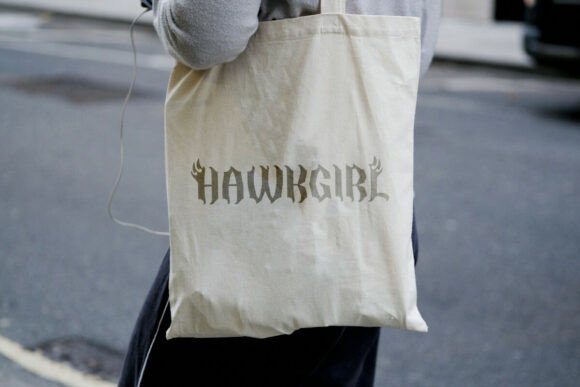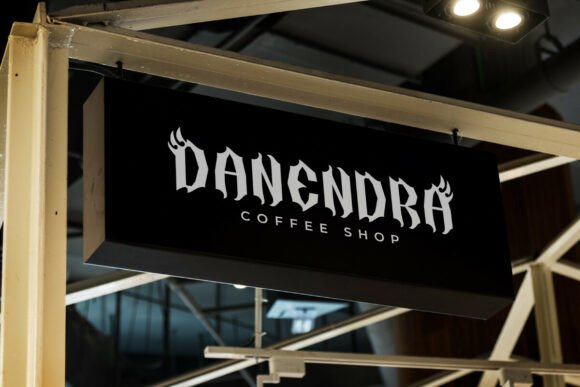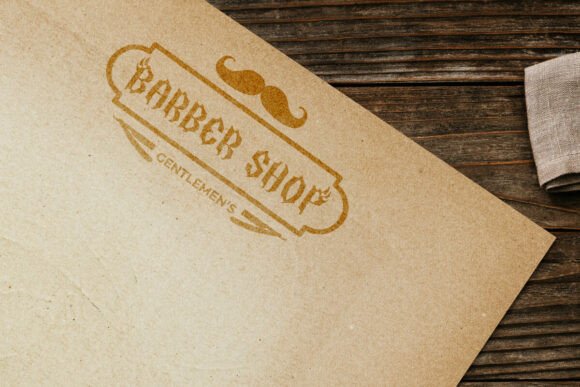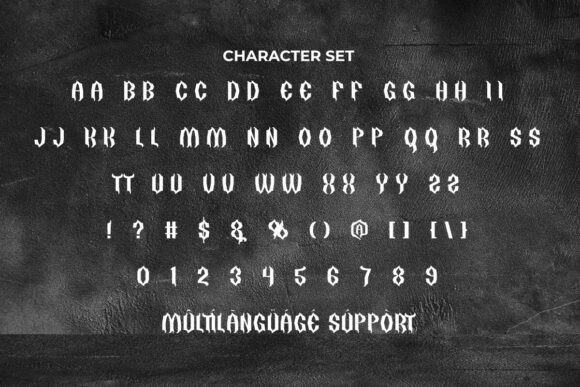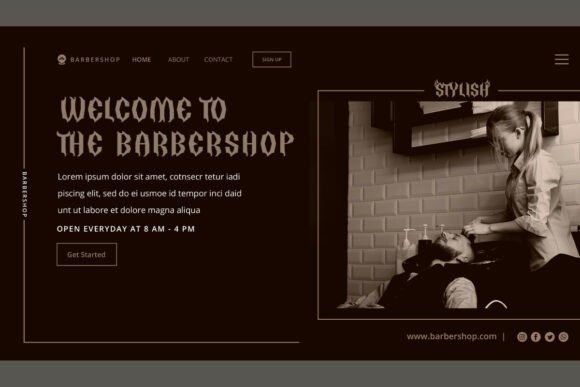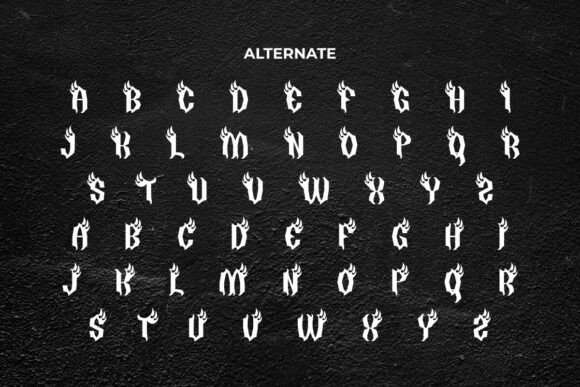
Hawkgirl Font: Unleash the Power of Bold Blackletter Typography
In the world of typography, fonts play a crucial role in conveying the tone and personality of a design. For designers and crafters looking to make a statement, Hawkgirl Font is an excellent choice. This bold blackletter display font is designed to evoke a sense of masculinity, horror, and fight, making it perfect for a wide range of applications.
The Characteristics of Hawkgirl Font
Hawkgirl Font boasts sharp angles that give it an intimidating and bold impression. The blackletter style, with its dramatic flourishes and sharp serifs, is reminiscent of traditional Gothic typography. However, Hawkgirl Font takes this classic style to the next level with its modern twist, making it perfect for designers looking to create a unique and eye-catching design.
What Makes Hawkgirl Font Stand Out
So, what sets Hawkgirl Font apart from other fonts? Here are a few key features that make it an excellent choice for designers and crafters:
- Bold and Intimidating: Hawkgirl Font is designed to make a statement. Its bold and sharp angles give it an intimidating presence that demands attention.
- Masculine and Edgy: The font’s blackletter style and sharp serifs give it a masculine and edgy feel, perfect for designs that require a strong and powerful look.
- Versatile: Hawkgirl Font is incredibly versatile and can be used for a wide range of applications, from branding and marketing materials to invitations and packaging.
Hawkgirl Font is perfect for any design project that requires a bold and eye-catching font. Here are some examples of how you can use Hawkgirl Font:
- Brand Image: Create a strong and memorable brand image with Hawkgirl Font. Its bold and intimidating presence makes it perfect for logos, business cards, and other marketing materials.
- Custom Design: Add a personal touch to your designs with Hawkgirl Font. Its unique and edgy style makes it perfect for custom designs, such as posters, flyers, and brochures.
- Invitations: Make a statement with your invitations using Hawkgirl Font. Its bold and masculine style is perfect for events, parties, and other celebrations.
- Labels and Packaging: Stand out on store shelves with Hawkgirl Font. Its bold and eye-catching style makes it perfect for product packaging, labels, and other marketing materials.
- Marketing Materials: Create effective marketing materials with Hawkgirl Font. Its bold and intimidating presence makes it perfect for posters, flyers, and other promotional materials.
- Menus and Signage: Add a bold and edgy touch to your menus and signage with Hawkgirl Font. Its unique style makes it perfect for restaurants, bars, and other businesses.
- Websites: Take your website to the next level with Hawkgirl Font. Its bold and eye-catching style makes it perfect for headings, titles, and other website elements.
Why Designers and Crafters Love Hawkgirl Font
Designers and crafters love Hawkgirl Font for its versatility, uniqueness, and bold style. Here are a few reasons why:
- Easy to Read: Despite its bold and edgy style, Hawkgirl Font is surprisingly easy to read, making it perfect for body text and other applications.
- Highly Versatile: Hawkgirl Font can be used for a wide range of applications, from branding and marketing materials to invitations and packaging.
- Unique and Eye-Catching: Hawkgirl Font is a unique and eye-catching font that is sure to grab attention. Its bold and intimidating presence makes it perfect for designers looking to make a statement.
In conclusion, Hawkgirl Font is a bold and eye-catching blackletter display font that is perfect for designers and crafters looking to make a statement. Its sharp angles and masculine style give it an intimidating and bold presence that demands attention. With its versatility, uniqueness, and bold style, Hawkgirl Font is an excellent choice for a wide range of applications, from branding and marketing materials to invitations and packaging.